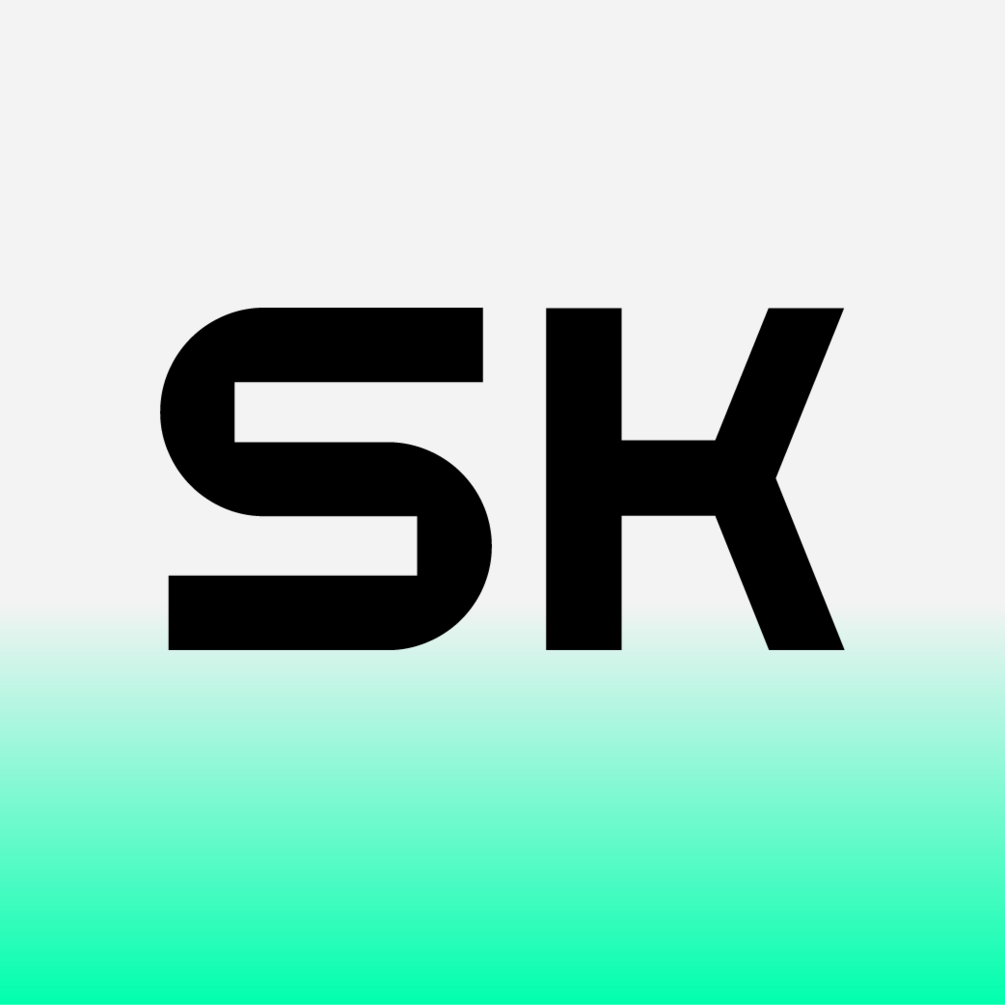
SK Primo
SK Primo is a monumental geometric grotesque created to stand out. An unusual combination of smooth rounded contours and sharp square shapes creates a visual contrast that is noticeable. Carefully adjusted shape and attention to detail make this font a great help in the work of the designer. SK Primo is ideal for headlines, posters, banners, and text highlighting.